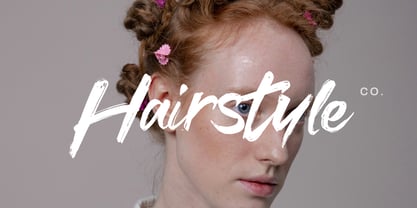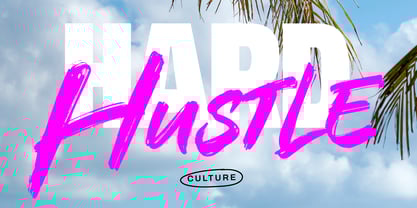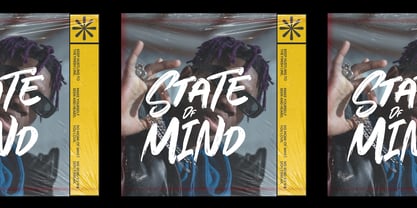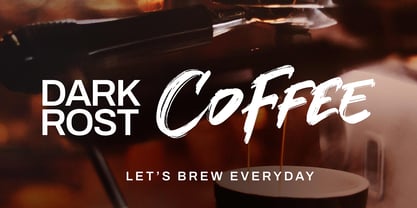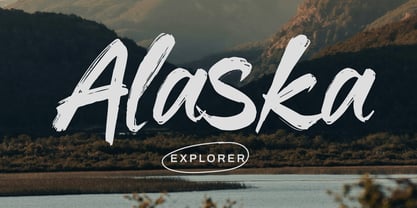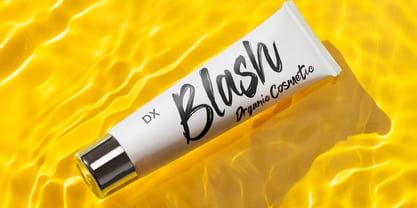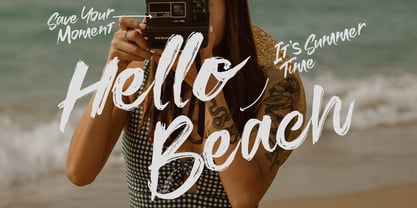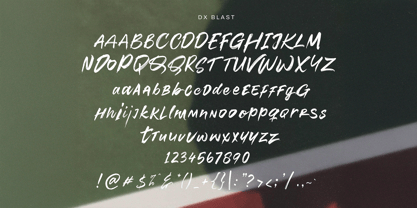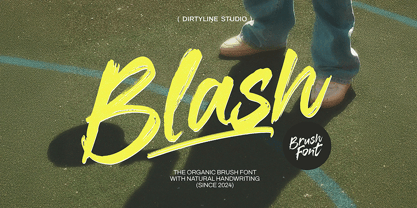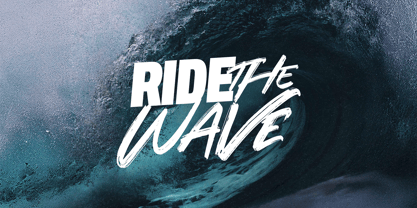
Dx Blash
by Dirtyline Studio
The Dx Blash Font Family was designed by Hendra Maulia and published by Dirtyline Studio. Dx Blash contains 1 styles. More about this family
Dx Blash a Modern Lettering Font, Inspiring from brush lettering style typography. This font is perfect for a design that makes it more attractive and playful. made with a very good level of aesthetics making this font suitable for book cover, poster, packging, merchandise, logotype and much more.
Designers: Hendra Maulia
Foundry: Dirtyline Studio